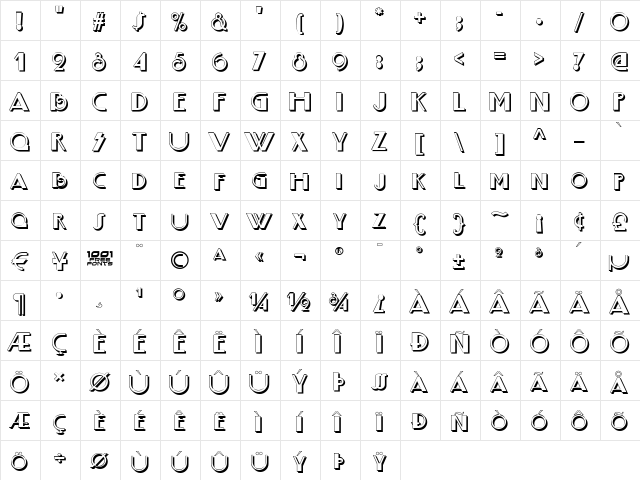
Boogie Nights ShadowNF Regular
Design Context for Boogie Nights ShadowNF Typeface
Boogie Nights ShadowNF brings ornamental detail and strong personality to headlines and identities, where visual impact matters more than quiet functionality.
Font Pairing: Pair with a clean neutral sans-serif for body copy to let Boogie Nights ShadowNF's character lead without overwhelming the composition.
Pro Tip: Use Boogie Nights ShadowNF exclusively at display sizes — it was designed to be seen, not read at length. Let a neutral companion handle body copy.